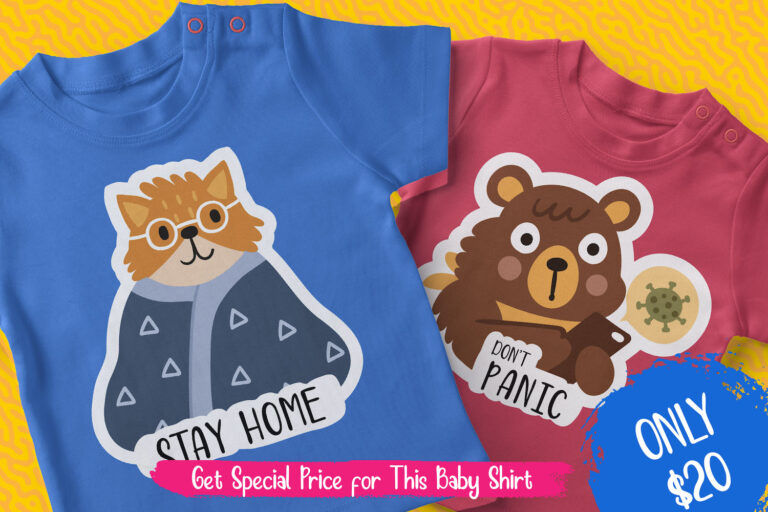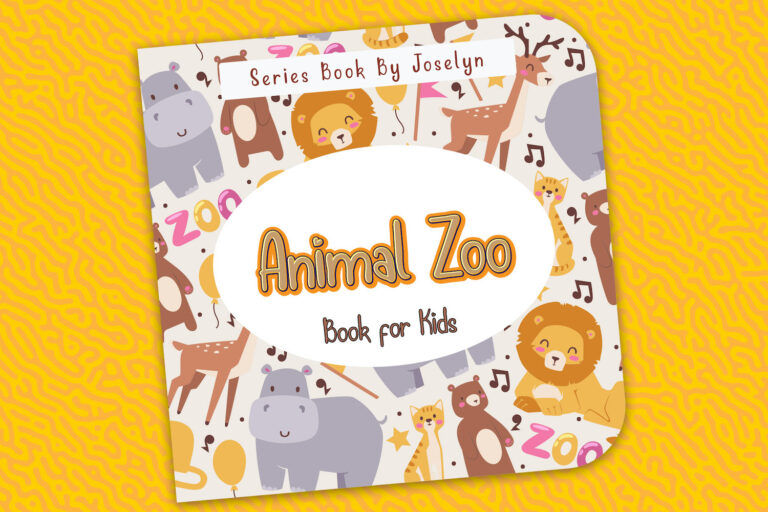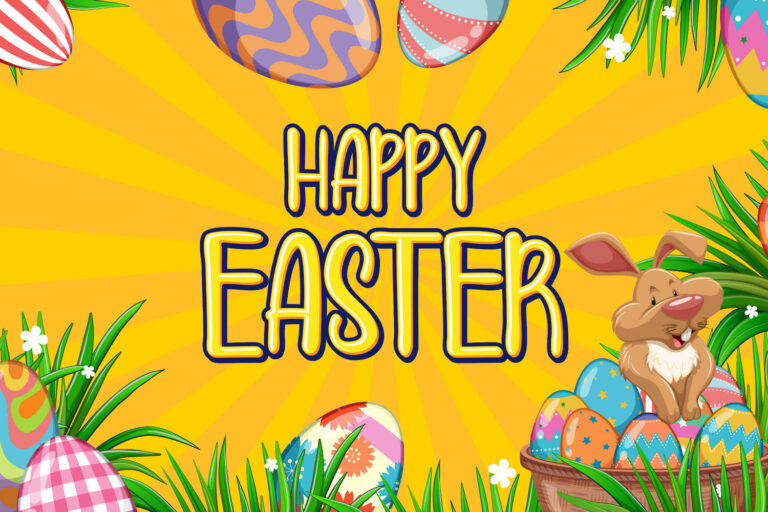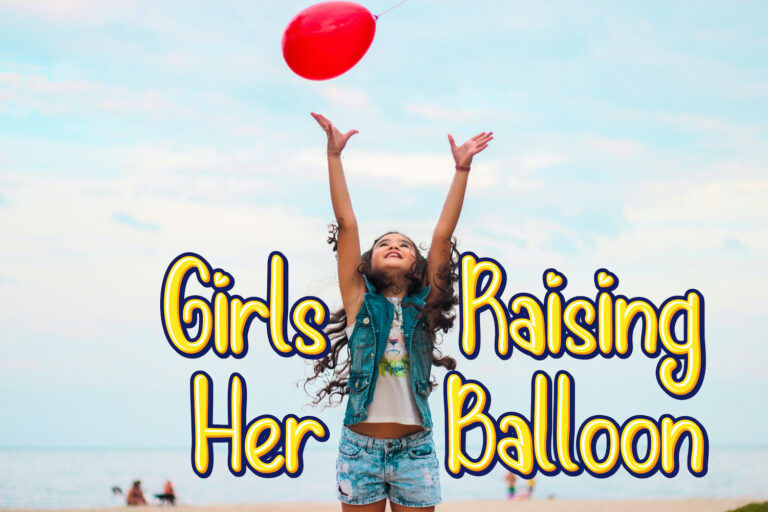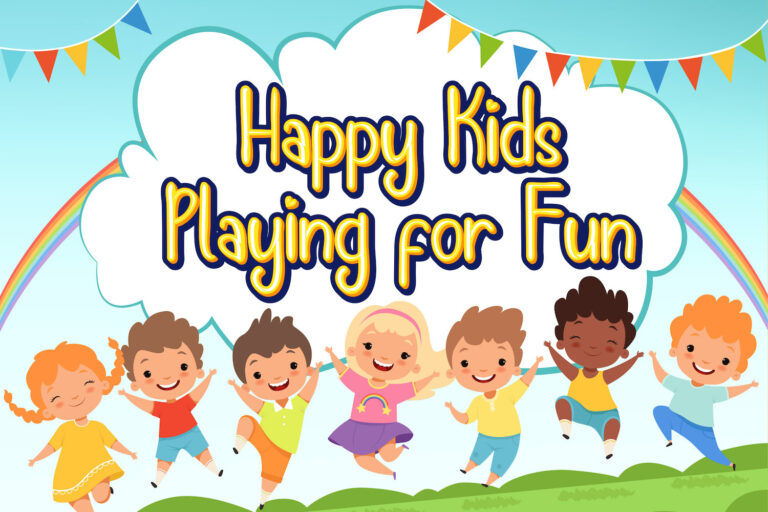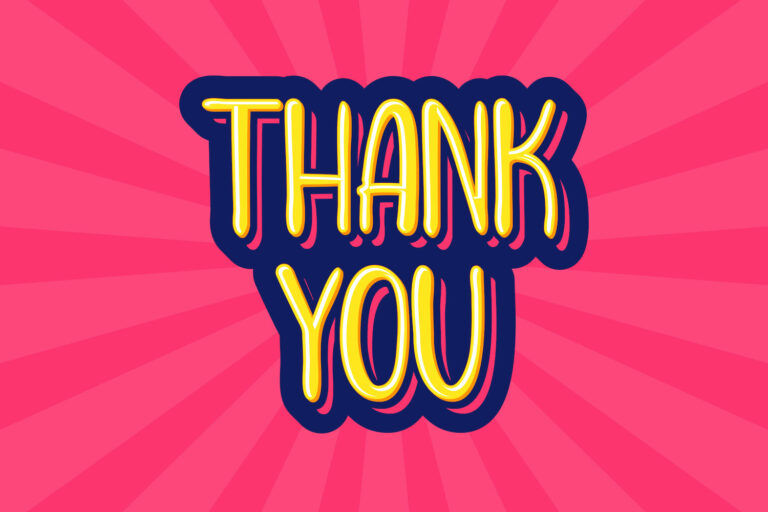
Jangkids Playful Display Font is a bright and cheerful typeface bursting with energy, designed to bring smiles and fun into any project. With its bold, rounded letters and friendly hand-drawn curves, Jangkids strikes the perfect balance between readability and expressiveness. The subtle bounce and exaggerated letterforms add a delightful rhythm, making it ideal for designs that speak to kids—or the young at heart.
Jangkids is especially well-suited for children's book covers, educational posters, birthday invitations, classroom decor, and toy packaging. It also works brilliantly on event banners, YouTube thumbnails, and social media graphics for family-friendly brands. The font’s layered, comic-style outlines add a playful pop that grabs attention instantly, while its multilingual support ensures global reach across diverse audiences.
Whether you’re designing a “Back to School” campaign or a festive celebration card, Jangkids Playful Display Font gives your words a joyful voice full of color, movement, and imagination.